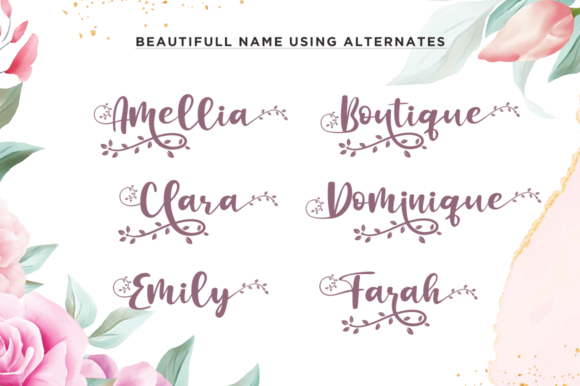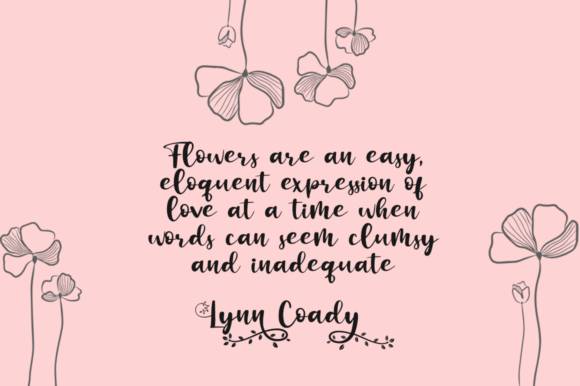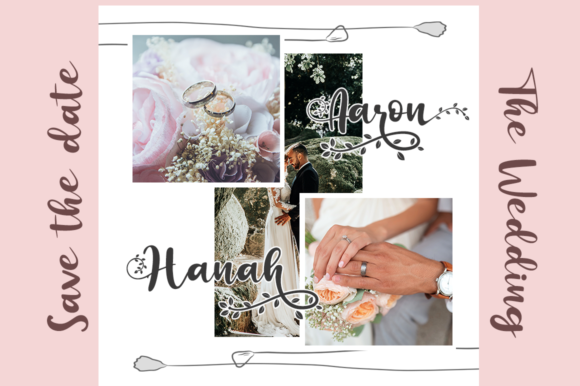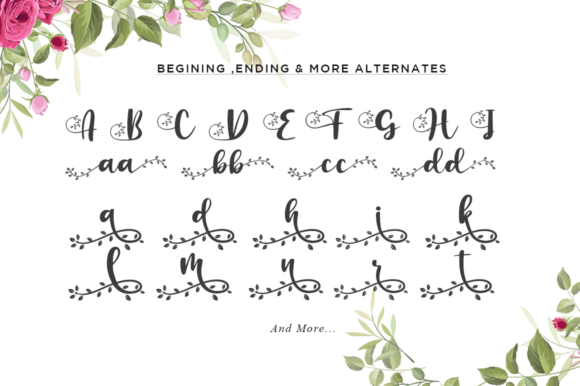
Introduction to Botanical Flourish Font
Botanical Flourish is an elegant and flowing handwritten font.
It is PUA encoded which means you can access all of the glyphs and swashes with ease It features a varying baseline, smooth lines, gorgeous glyphs and stunning alternates.
Key Features of Botanical Flourish Font